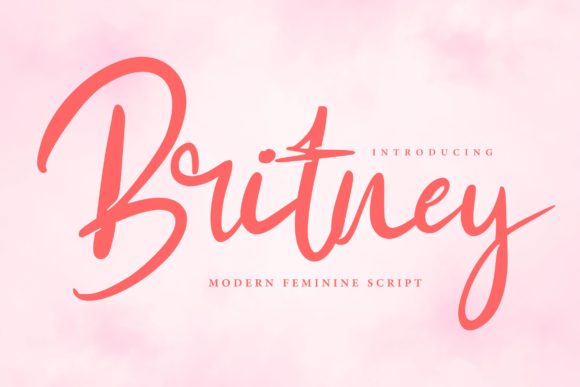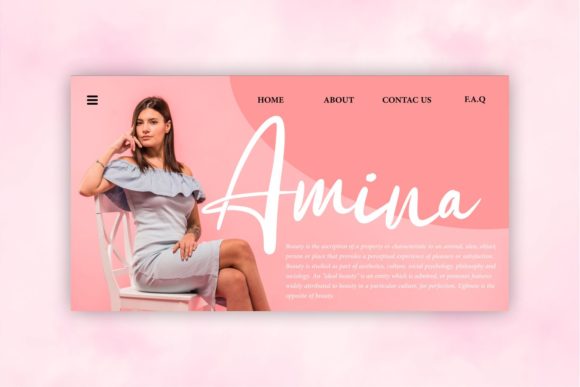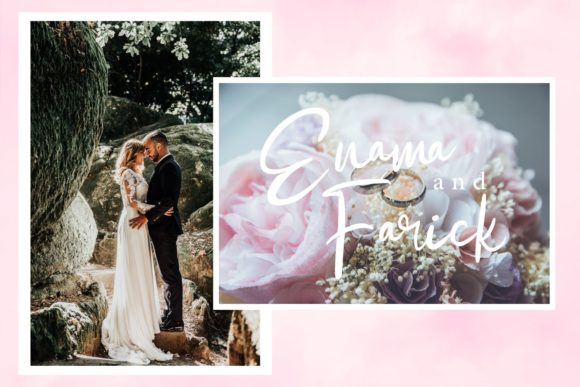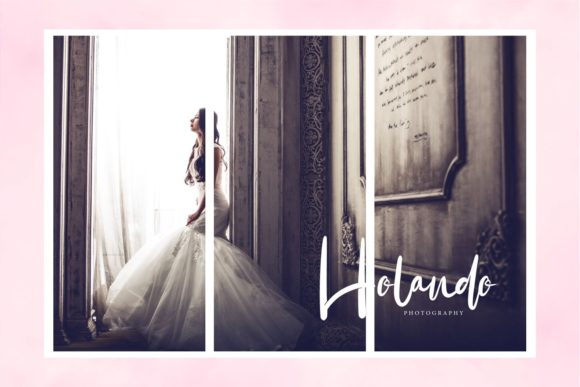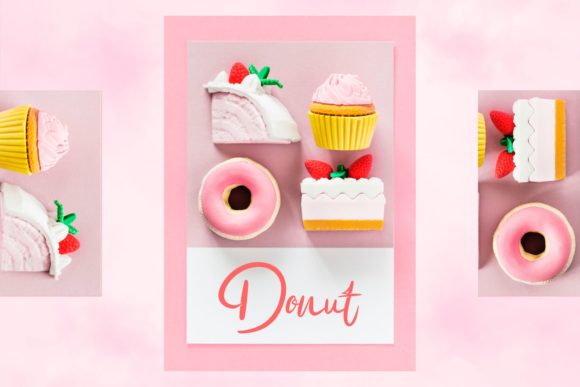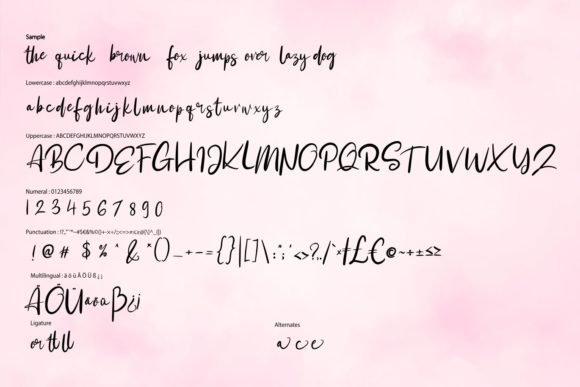
HomeScript FontsBritney Font Script Fonts Britney Font FacebookXPinterestWhatsApp Britney Font Poster 2 Britney Font Poster 3 Britney Font Poster 4 Britney Font Poster 5 Britney Font Poster 6 About Britney Font Britney is a modern homage to classic calligraphy. It will add an authentic vibe to any design project. DOWNLOAD ON CREATIVE FABRICAThis font is sold and delivered by Creative Fabrica. Font Canyon may earn a commission if you buy through this link. People also explored Caps Number Font Palm Beach Font Big Fish Lo Font Autumn Flowers Font Laracryf Font Big Tales Font Widoro Font Hello Spring Font Bergita Font 280 0 TagsBritney Font Previous articleQunanty FontNext articleEnofive Font LEAVE A REPLY Cancel reply Comment: Please enter your comment! Name:* Please enter your name here Email:* You have entered an incorrect email address! Please enter your email address here Website: Save my name, email, and website in this browser for the next time I comment. Personal Use Free Arabella Script Personal Use Free Read more about this font Mama Personal Use Free Read more about this font White Rose Personal Use Free Read more about this font Theobald Personal Use Free Read more about this font BLOG Fonts That Capture the Spirit of New York City New York City is more than just a place—it’s an experience, a rhythm, a visual language... Best Fonts for T-Shirt Design – Top 2025 Picks How to Install and Use Fonts on Windows, macOS, and Web Projects Transform Your Website: Elevate Your Typography with 7 Best Web Font Generators